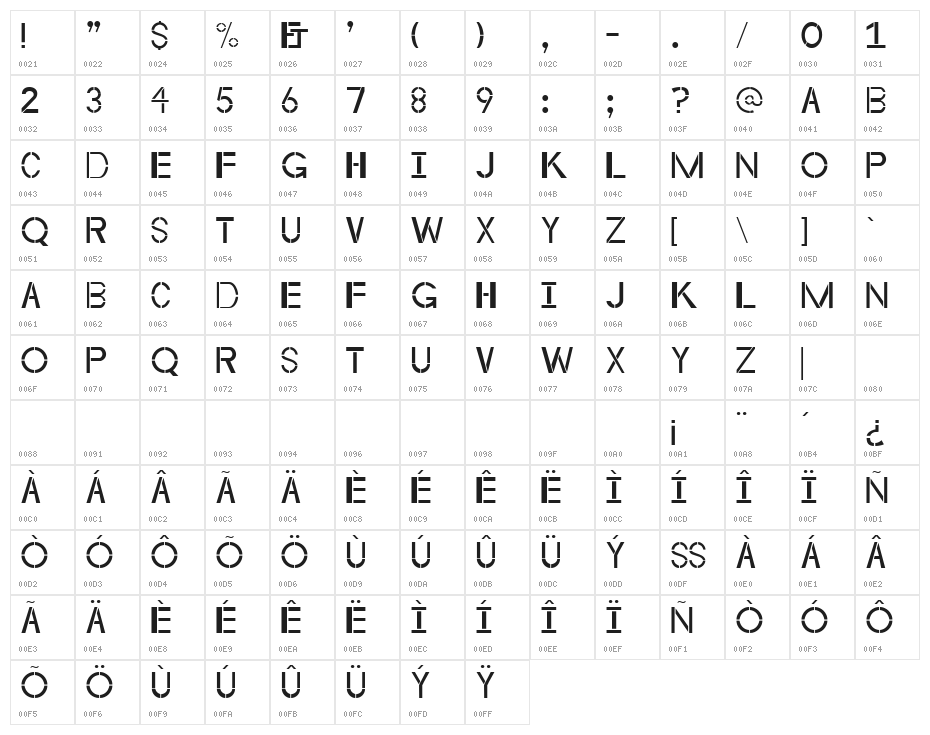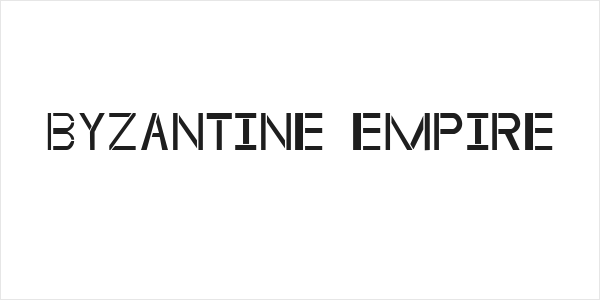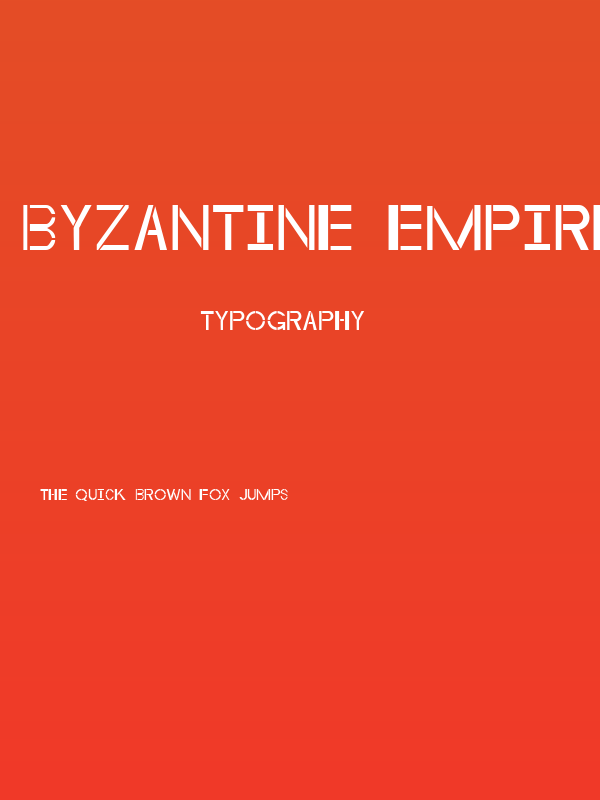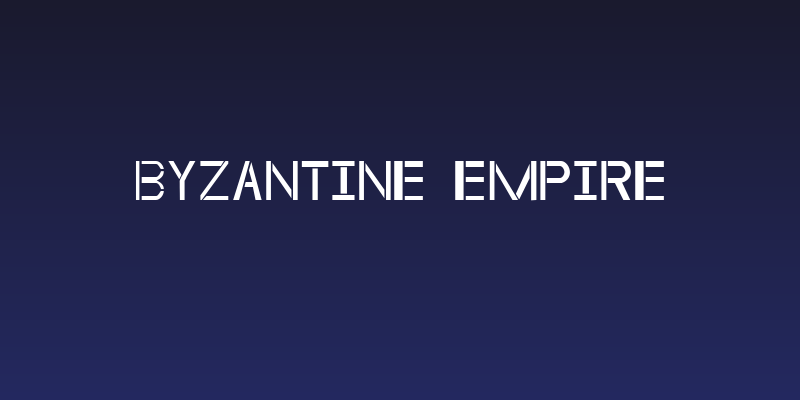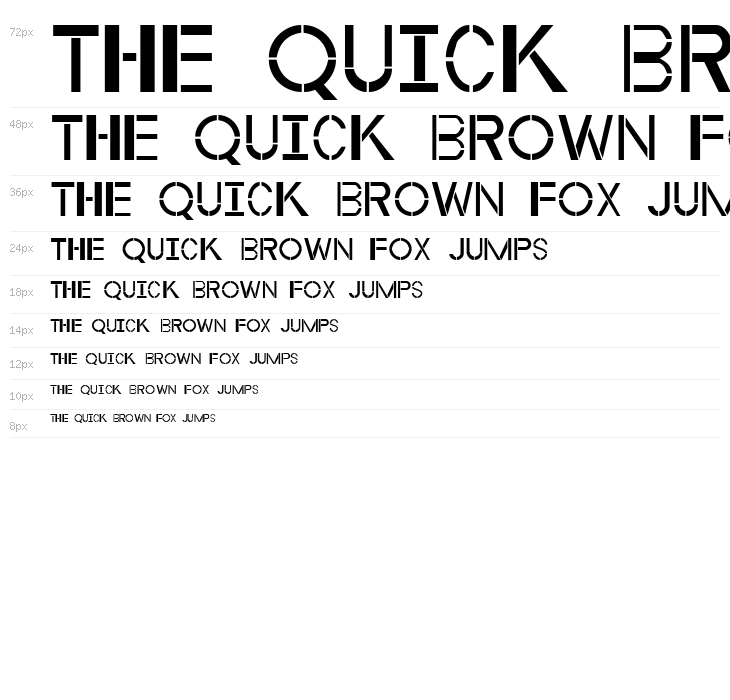
Byzantine Empire Font
Byzantine Empire Description
This font exhibits a bold and modern design with a unique stencil-like appearance. Each character is crafted with precision, featuring distinct cutouts that create a striking visual effect. The uppercase letters are uniform in height, while the numbers and special characters maintain a consistent style, enhancing readability. The font's geometric structure and clean lines make it ideal for contemporary design projects. It balances artistic flair with functionality, making it suitable for a variety of creative applications.
| Proposed Projects | Ideal for branding, posters, and modern editorial design, this font can be used in advertising, packaging, and digital media to create a strong visual impact. |